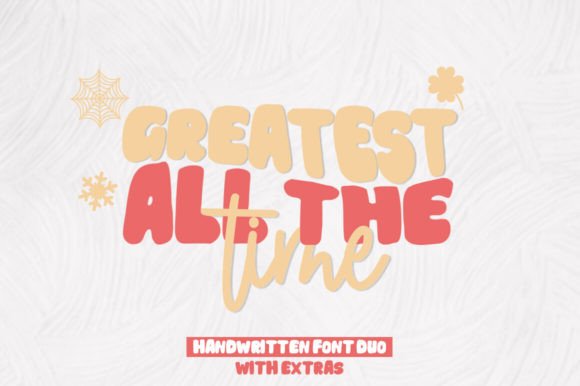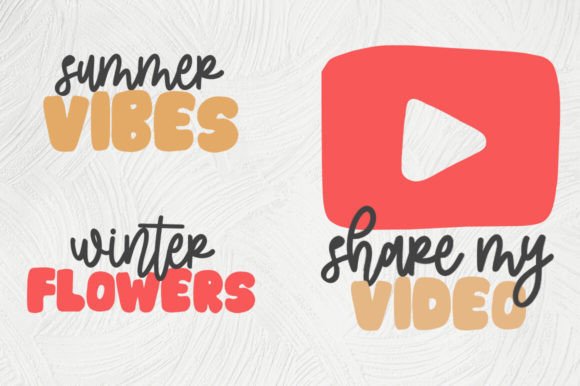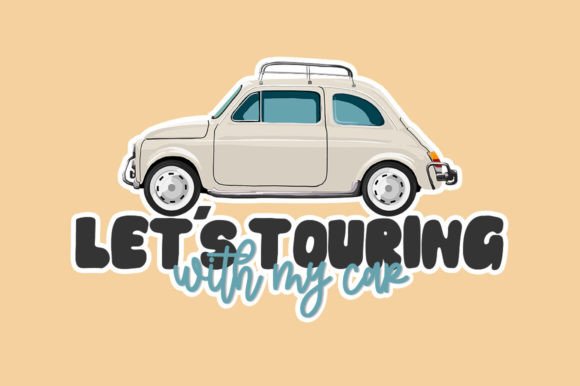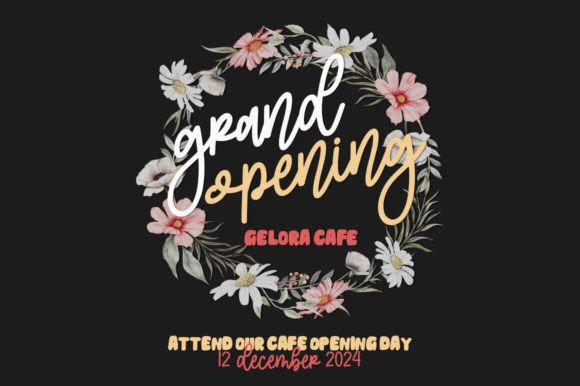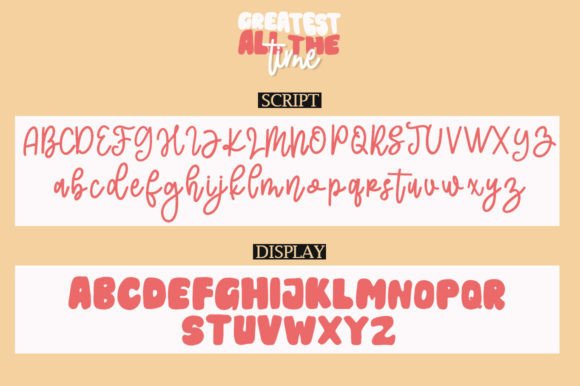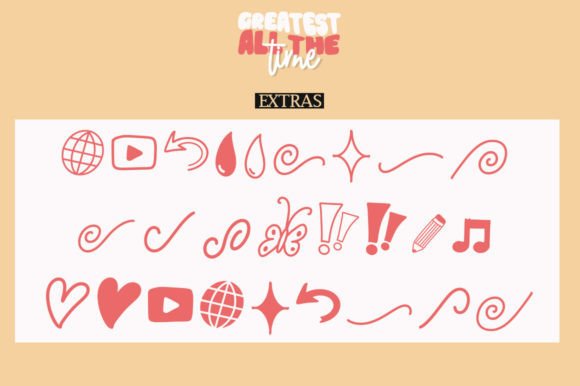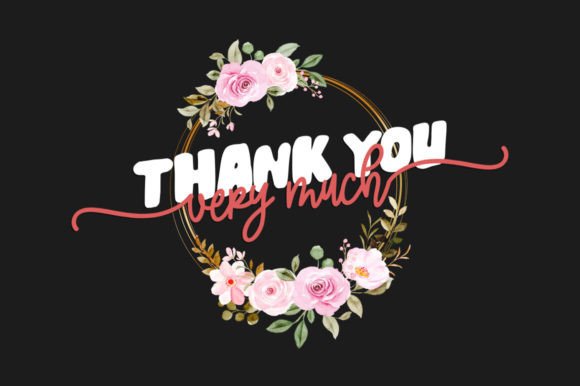
Greatest All the Time – is a Duo Handwritten with Extras and a petite (handwritten and modern look) Font Duo, featuring a sweet and gentle look. This original look will appeal to a variety of crafty ideas, from letterhead and titles to writing implements.
Greatest All the Time Font